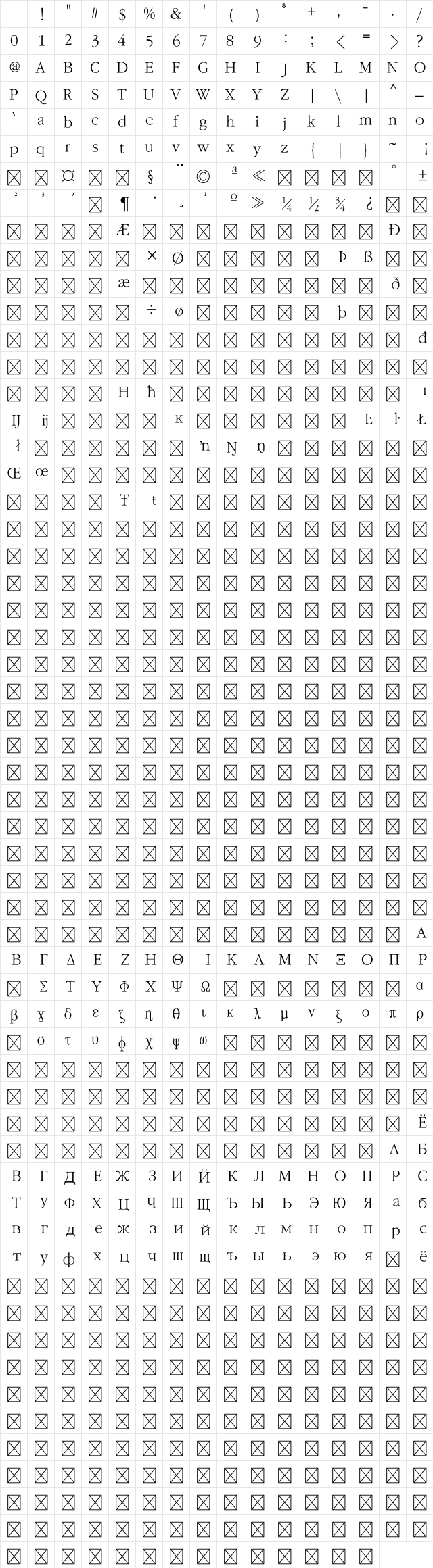
Complete MP SDMyungjoKo2 Light glyph index. Displaying only characters natively supported by MP SDMyungjoKo2 Light font.
MP SDMyungjoKo2 is a composed and adaptable typeface that performs quietly and consistently across a wide range of design contexts. Its slender proportions lend an understated elegance to any composition.